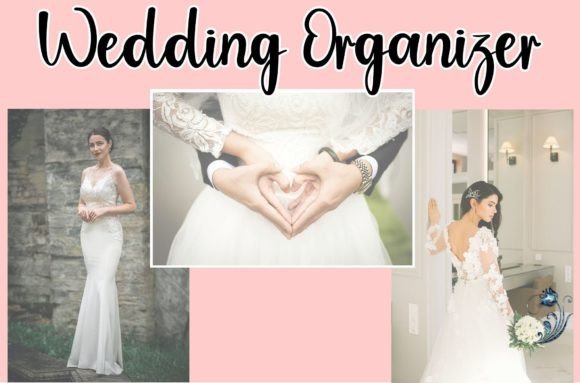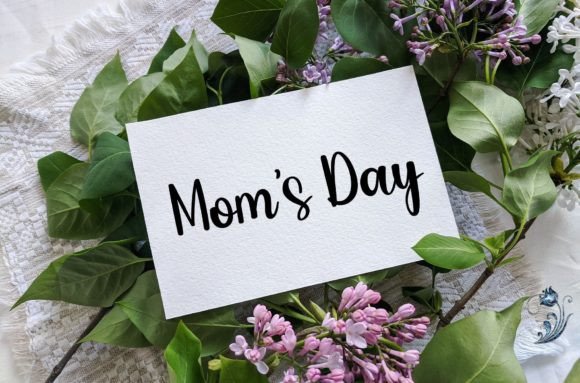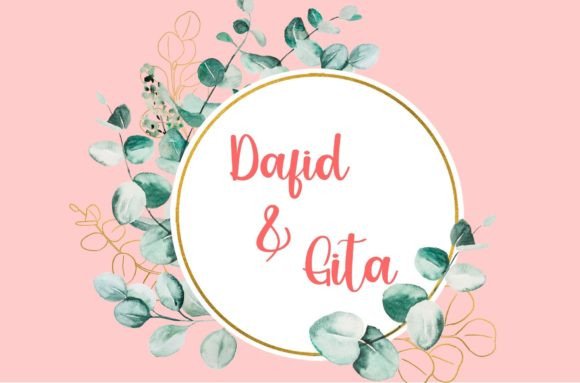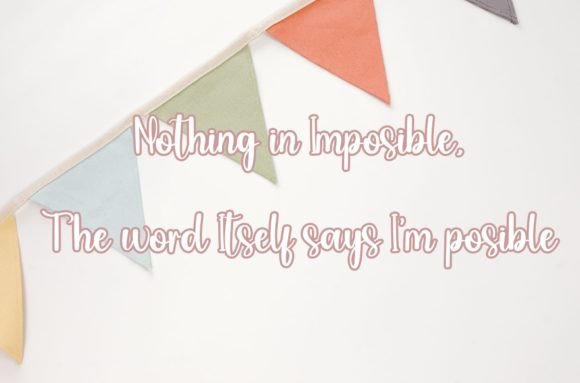
Bestie Font
About Bestie Font
Bestie is not just a font; it’s a creative muse that invites you into a world of sweetness, romance, and exquisite beauty. This script font has been carefully crafted to be more than just a collection of letters—it’s a reflection of artistic elegance, with each stroke adorned with beautiful curves that breathe life into your designs.
At the heart of Bestie is a captivating charm that effortlessly transforms your creative process. The graceful curves in every letter create a visual dance, making it a font that not only serves its functional purpose but becomes an inspiration in itself. With Bestie, your creativity flows effortlessly, turning the design journey into a joyful exploration of romantic aesthetics.
Picture this font as your artistic confidante, always ready to enhance your projects with its delightful and enchanting demeanor. Whether you’re crafting wedding invitations, love letters, or any design that craves a touch of allure, Bestie stands as a testament to the seamless marriage of form and function.
The meticulous design of Bestie extends an invitation to delve into a world where creativity knows no bounds. Its sweet and romantic character makes it a perfect choice for projects that aim to evoke emotions, adding an extra layer of depth to your visual storytelling. Bestie’s versatility shines through, making it equally suitable for whimsical designs and elegant compositions.
In the realm of typefaces, Bestie is a standout, beckoning you to unleash your creative prowess. Its ability to seamlessly blend into diverse design contexts makes it a reliable ally for various projects—invitations, greeting cards, social media graphics, and more. The result? A harmonious fusion of your creativity and Bestie’s innate charm.
In conclusion, Bestie transcends being a font; it becomes a source of inspiration and a conduit for creative expression. With its sweet, romantic allure and beautiful curves, Bestie stands ready to be the driving force behind your next masterpiece. Let your creativity flow effortlessly, guided by the artistic strokes of Bestie, and watch as your designs come to life in the most enchanting way possible.